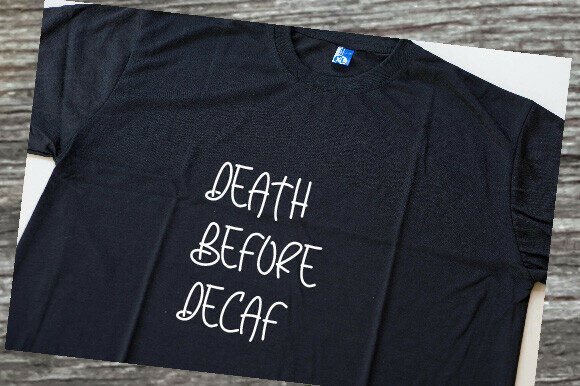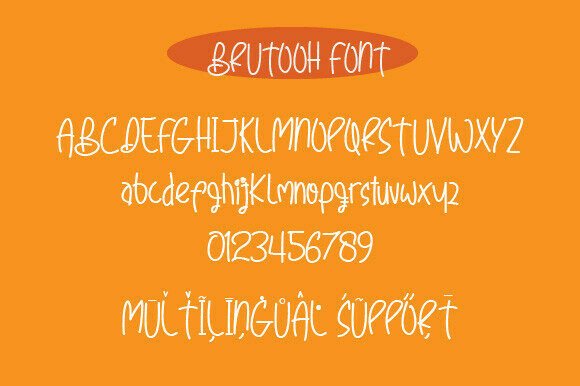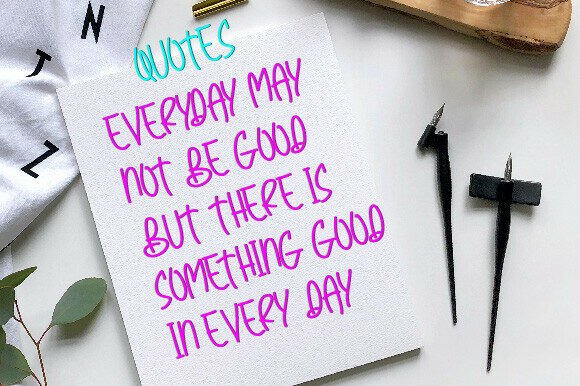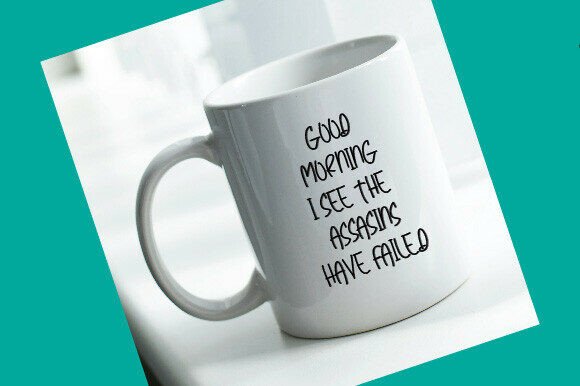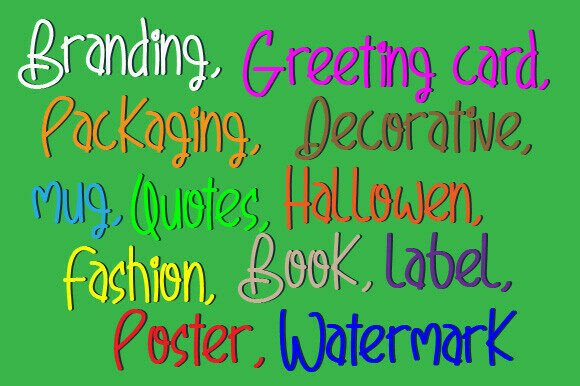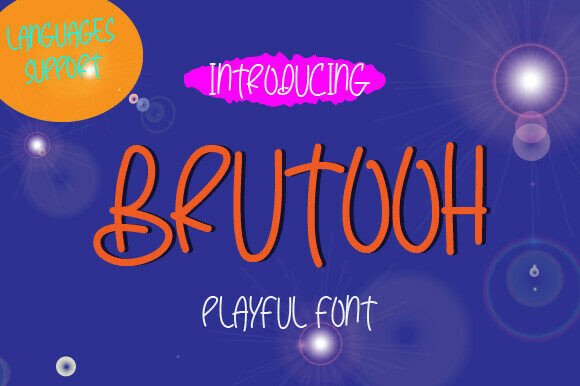
Discover the Sweet Charm of Brutooh Font
Have you ever been in the middle of a design project, and suddenly, you’re stuck on finding the perfect font? I recall a recent experience where I was working on a branding project for a boutique bakery, and I just couldn’t find a font that captured the right balance of elegance and playfulness. That’s when I stumbled upon the Brutooh font, and it instantly became the star of the show! In this article, we’ll dive into the captivating world of Brutooh, exploring its features, uses, and what makes it a versatile choice for designers, crafters, and creative hobbyists.
A Personal Review of Brutooh Font
As a designer, I’m always on the lookout for fonts that can bring a unique touch to my projects. Here’s my honest review of Brutooh:
What I Love About Brutooh ✨
• ✅ Perfect balance of elegance and playfulness: Brutooh strikes a beautiful balance between sophistication and whimsy, making it suitable for a wide range of projects.
• ✅ Versatile and adaptable: Whether you’re designing a logo, packaging, or a greeting card, Brutooh seems to fit right in.
• ✅ Beautiful OpenType features: The font comes with a range of OpenType features, including glyphs and stylistic alternates, which allow for endless creativity.
• 🤔 Limited use in very formal projects: While Brutooh is elegant, it may not be the best fit for very formal or traditional projects, such as corporate reports or academic papers.
• 🤔 Some characters may require manual kerning: As with any font, some characters may require manual kerning to achieve optimal results.
The Story Behind Brutooh Font
While the origins of Brutooh are shrouded in mystery, it’s said that the font was inspired by the beauty of handwritten scripts and the elegance of traditional typography. The designer aimed to create a font that would bring a touch of sweetness and playfulness to any project, while maintaining a level of sophistication and elegance.
Q: What type of projects is Brutooh best suited for?
A: Brutooh is a versatile font suitable for a wide range of projects, including branding, packaging, display text, and creative hobbies.
Q: Does Brutooh come with OpenType features?
A: Yes, Brutooh comes with a range of OpenType features, including glyphs and stylistic alternates.
In conclusion, Brutooh font is a beautiful, versatile addition to any design project. With its perfect balance of elegance and playfulness, it’s sure to bring a touch of sweetness to your designs. Whether you’re a designer, crafter, or creative hobbyist, Brutooh is an excellent choice for a wide range of projects.